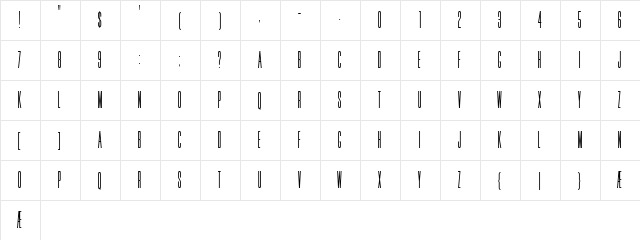
HFF Jammed Pack Regular
| Foundry | Have Fun with Fonts |
| Designer | Have Fun with Fonts |
| Year | 2010 |
HFF Jammed Pack offers clean, dependable letterforms without strong stylistic allegiance, making it a practical choice for designers who need flexibility.